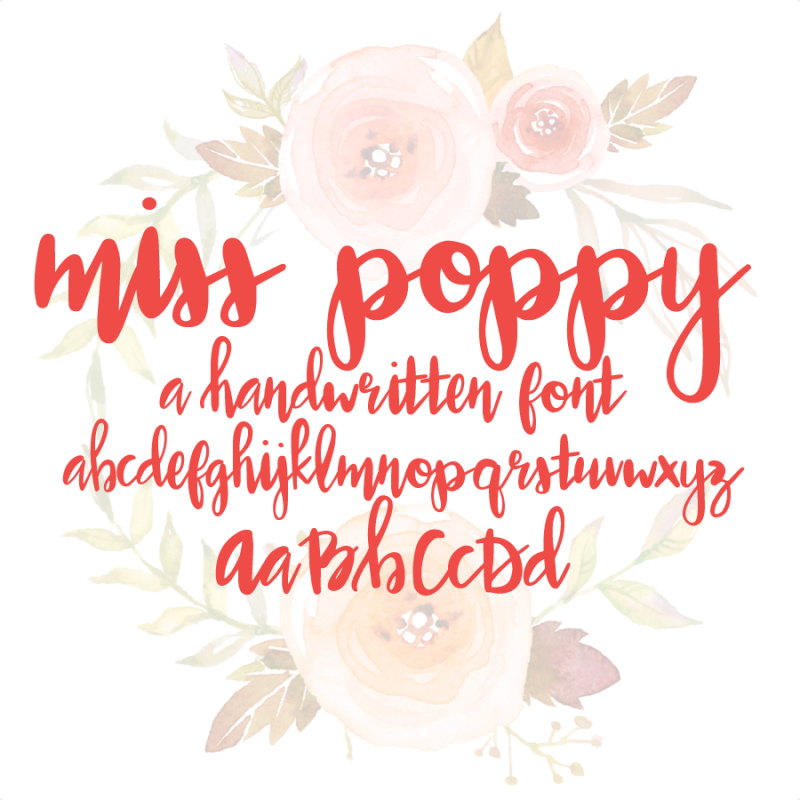
Miss Poppy Font
A pretty, handwritten script font. Perfect for greeting cards, stationary, scrapbooking, prints and more! This font includes some initial characters. Includes numbers and standard punctuation.